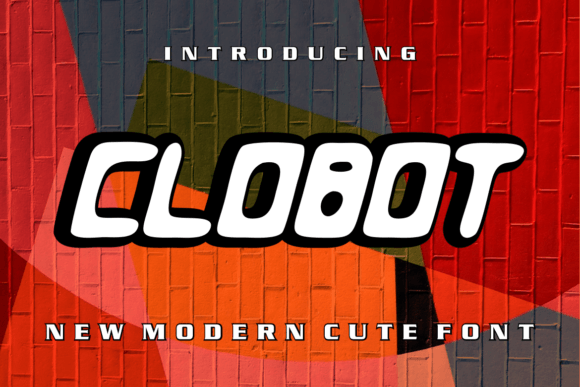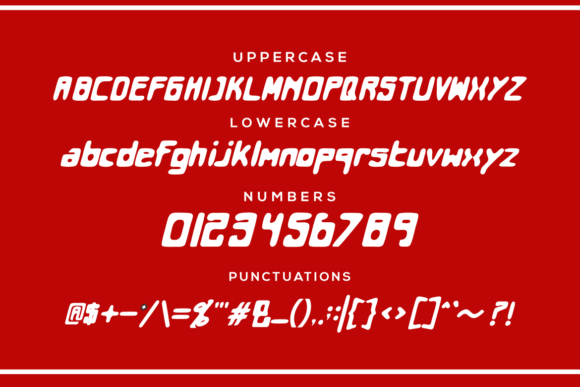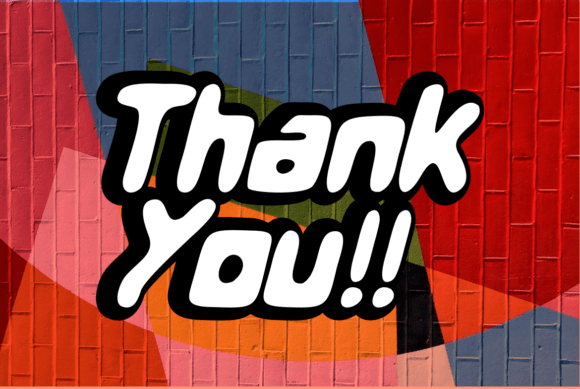
Introducing Clobot Font: Elevate Your Designs with Elegance and Modernity
In the world of typography, a font can make or break a design. For designers and crafters looking for that perfect blend of beauty, class, elegance, and modernity, Clobot Font is an exceptional choice. This unique display font is versatile and can be used across a myriad of projects, from signatures and stationery to logos, wedding designs, typography quotes, magazine or book covers, website headers, clothing, branding, packaging design, and more.
The Essence of Clobot Font
Clobot Font stands out with its distinctive style that effortlessly combines elegance with a modern twist. Its classy appearance makes it an ideal selection for projects that demand a touch of sophistication and refinement. Whether you’re working on a luxury brand’s logo, a high-end fashion website’s header, or an elegant wedding invitation, Clobot Font brings a level of prestige and poise that’s hard to match.
One of the key advantages of Clobot Font is its incredible versatility. Designers and crafters can use it in a wide array of applications, including:
- Signature and Stationery: Add a personal touch to letters, notes, and official documents.
- Logo Design: Create memorable and impactful logos for businesses and brands.
- Wedding and Event Design: Elevate wedding invitations, programs, and event banners with a touch of elegance.
- Typography Quotes: Make quotes and phrases stand out on social media, blogs, or print materials.
- Magazine or Book Cover: Use Clobot Font to create eye-catching titles and headlines for publications.
- Website Header: Enhance the visual appeal of website headers and make a lasting first impression.
- Clothing and Apparel: Design stylish and attractive text for t-shirts, hoodies, and other apparel.
- Branding and Packaging: Strengthen brand identity with elegant packaging and branding materials.
Why Choose Clobot Font?
Choosing Clobot Font for your design projects comes with numerous benefits:
- Elegant and Modern: It offers a perfect blend of elegance and modernity, making your designs stand out.
- Highly Readable: Despite its elegant style, Clobot Font maintains high readability, even at smaller sizes.
- Unique Style: Its distinctive style ensures your designs have a unique look and feel.
- Time-Saving: With its versatility and wide range of uses, Clobot Font can save you time in searching for different fonts for various projects.
Tips for Using Clobot Font Effectively
To maximize the potential of Clobot Font, consider the following tips:
- Pair with Complementary Fonts: When needed, pair Clobot Font with simpler fonts to create contrast and hierarchy in your designs.
- Adjust Size and Color: Play with different sizes and colors to emphasize certain parts of your text and create visual interest.
- Experiment with Textures and Backgrounds: Combine Clobot Font with textures and backgrounds that complement its elegant style without overpowering it.
Clobot Font is a game-changer for designers and crafters looking to infuse their projects with a sense of beauty, class, elegance, and modernity. Its versatility, readability, and unique style make it an invaluable asset in any designer’s toolkit. Whether you’re working on a personal project or a client’s, Clobot Font can help you achieve that wow factor you’re aiming for. Explore the possibilities of Clobot Font today and elevate your designs to new heights of elegance and sophistication.